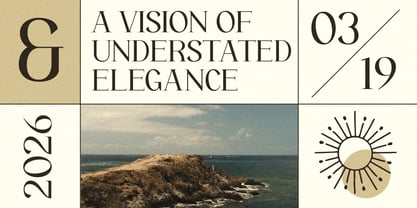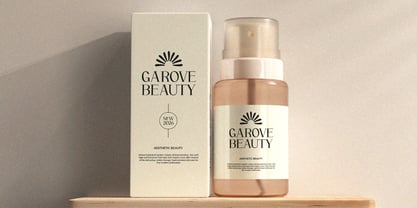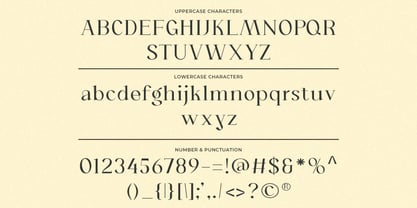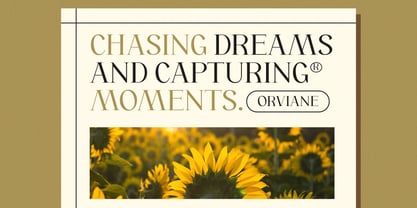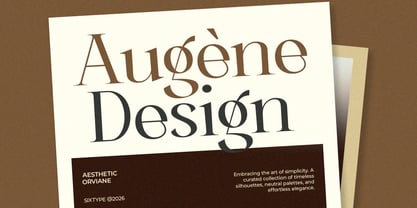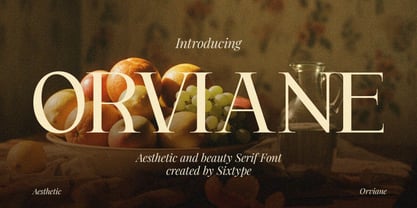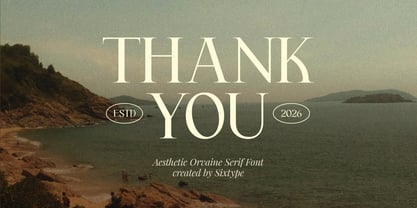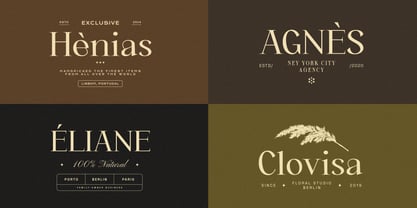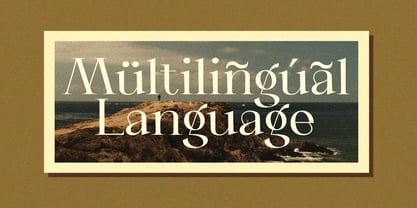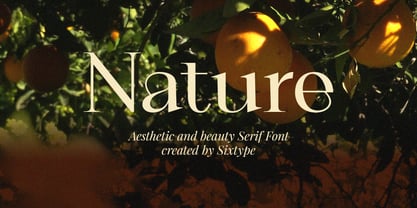
Orviane
Orviane is a graceful high-contrast serif typeface that embodies timeless beauty and refined sophistication. Drawing inspiration from classic editorial typography, it showcases delicate hairlines, elegant proportions, and distinctive artistic details that infuse individuality into every letterform. Subtle flourishes and expressive curves enhance its visual allure, making it an excellent choice for luxury branding, beauty products, fashion editorials, and premium packaging. With its harmonious blend of classic and contemporary elements, Orviane offers a poetic and atmospheric tone, perfect for designs that aspire to convey elegance, warmth, and compelling visual storytelling.